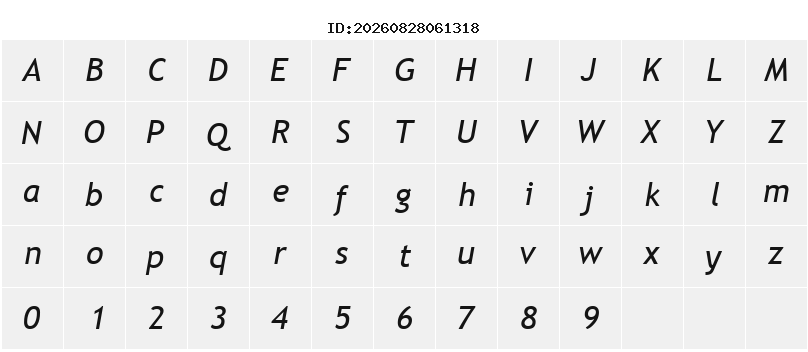
• Font Name: Trebuchet MS
• Designer: Vincent Connare
• Manufacturer: Microsoft Corp.
• Description: Trebuchet, designed by Vincent Connare in 1996, is a humanist sans serif designed for easy screen readability. Trebuchet takes its inspiration from the sans serifs of the 1930s which had large x heights and round features intended to promote readability on signs. The typeface name is credited to a puzzle heard at Microsoft, where the question was asked, "could you build a Trebuchet (a form of medieval catapult) to launch a person from the main campus to the consumer campus, and how?" The Trebuchet fonts are intended to be the vehicle that fires your messages across the Internet. "Launch your message with a Trebuchet page".
Trebuchet MS.ttf is a modern, elegant sans-serif font designed for ultimate readability and visual harmony. Perfect for branding, headlines, web design, and print materials.